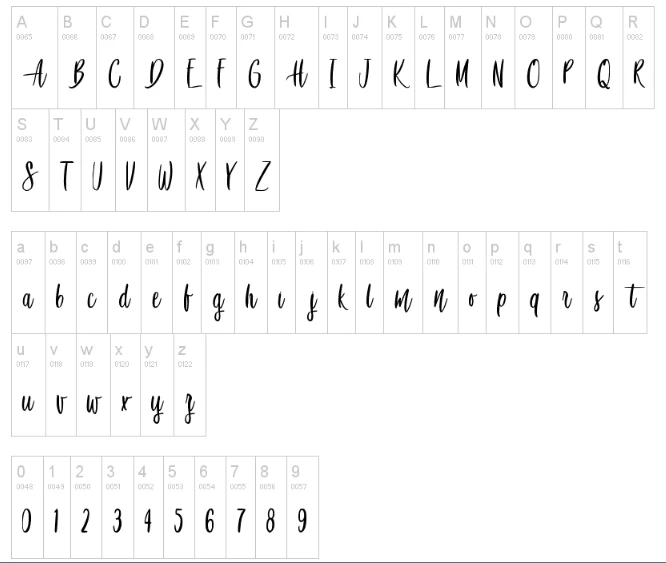
Awesome birds is such a font that is perfect for designing purposes. Design platforms are most suitable to use this font. When you decide to make an elegant design and want to add text, Awesome birds font is the perfect choice on that works. The font is very stylish so it is best for design and text-decoration. You can use this font on the platforms below:
| Name | Awesome birds Font. |
| Style | Script, Handwriting |
| Designer | Suthi Srisopha. |
What type of font is Awesome Birds Font?
Ans: Awesome birds is a Script typeface designed by Suthi Srisopha.
Is there any font similar to Awesome Birds Font in Google Fonts?
Ans: Yes, It has. The closest similar alternative in Google fonts to Awesome Birds is Yellowtail.